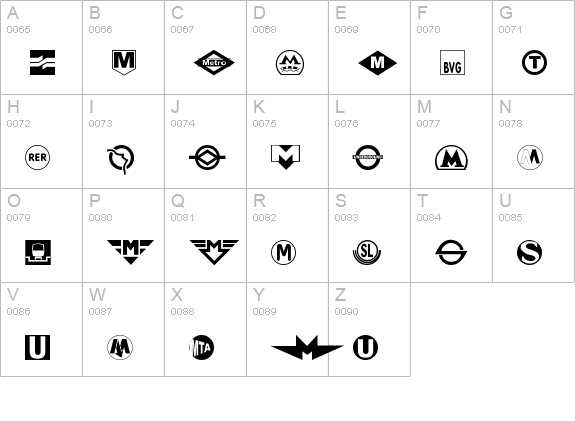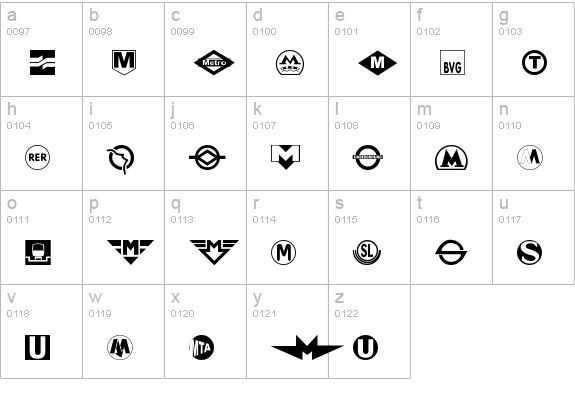
Subway Sign font is a modern and sleek typeface inspired by the iconic signs found in bustling subway stations. With its clean lines and bold presence, this font is perfect for capturing the fast-paced energy of urban life. Whether you're designing a poster, signage, or branding materials, Subway Sign font will make your text stand out with its distinctive style. The best part? Subway Sign font is completely free to download at FontsMarket.com. Don't miss out on this opportunity to add a touch of urban sophistication to your projects without breaking the bank. Download Subway Sign font today and elevate your designs with its unique charm and versatility.